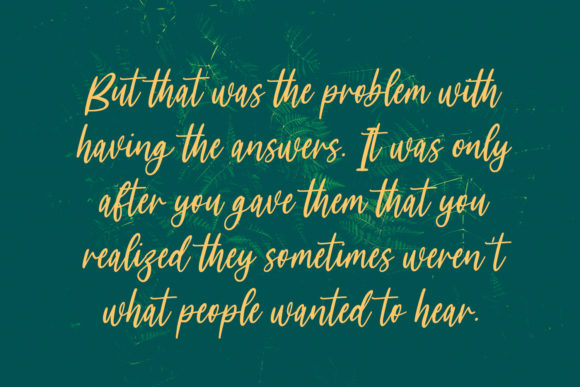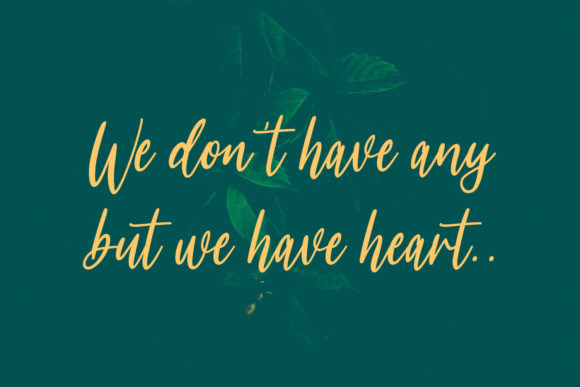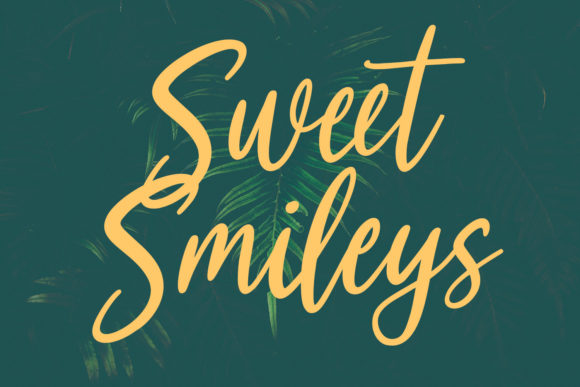
Introduction to Meganfoxy Script Font
As a designer, there’s nothing quite like the thrill of discovering a new font that elevates your creative project to the next level. For me, that moment came when I stumbled upon the enchanting Meganfoxy Script Font. Its elegant, handwritten style has a way of making even the simplest designs feel special and unique.
Whether you’re crafting wedding invitations, designing greeting cards, or creating logos for a personal brand, Meganfoxy Script Font is the perfect design resource to add a touch of sophistication and personality. With its high-quality, transparent background, this font is ideal for a wide range of applications, from print to digital projects.
What sets Meganfoxy Script Font apart is its versatility and ease of use. You can download it for free, making it an accessible design tool for designers of all levels. In this article, we’ll explore the beauty and benefits of Meganfoxy Script Font, and why it’s a valuable addition to any designer’s toolkit.
Key Features of Meganfoxy Script Font
- Unique, elegant script font design ideal for creative projects and design resources.
- Features a transparent background, making it easy to use on various backgrounds and designs.
- High-resolution font with a resolution of 300 DPI, suitable for printing and digital use.
- Supports a wide range of languages, making it a versatile design resource for international projects.
- Perfect for adding a touch of sophistication and elegance to various design elements, including logos, headings, and titles.
Honest Review: Meganfoxy Script Font
I recently stumbled upon the Meganfoxy Script Font while searching for a unique design resource to elevate my creative project. As a designer, I’m always on the lookout for high-quality fonts that can add a personal touch to my work. In this review, I’ll share my honest thoughts on this font.
- ✨ Unique and elegant design that’s perfect for branding and packaging.
- ✨ High-quality resolution that ensures crisp and clear text.
- ⚠️ The font doesn’t come with a transparent background, which might limit its use in certain design scenarios.
- ⚠️ Some characters might require additional styling or customization to achieve the desired look.
Overall, I’m impressed with the Meganfoxy Script Font’s potential. While it may have some limitations, its unique design and high-quality resolution make it a valuable addition to any designer’s toolkit. With a little creativity and experimentation, this font can help take your design project to the next level.
Meganfoxy Script Font
Designing with Meganfoxy Script Font
Meganfoxy Script Font is a versatile and elegant design resource ideal for various creative projects. To get the most out of this high-quality font, follow these steps:
To get the most out of Meganfoxy Script Font, use it for titles, headings, and other design elements where a touch of elegance is required. This font is particularly suitable for:
- Branding and logo design
- Photography and art projects
Alternatives to Meganfoxy Script Font
Alex Brush Font is a beautiful script font perfect for creative projects that require a touch of elegance and sophistication. It’s ideal for designing wedding invitations, certificates, and other formal documents. With its high quality and transparent background, it’s a great design resource for any project. Alex Brush Font is a great alternative to Meganfoxy Script Font for those who want a more refined and polished look.
Carolyna Pro Font is a modern script font that’s perfect for designers who want to add a touch of luxury and sophistication to their projects. It’s ideal for designing high-end branding materials, packaging, and advertising campaigns. With its high quality and transparent background, it’s a great design resource for any project. Carolyna Pro Font is a great alternative to Meganfoxy Script Font for those who want a more modern and edgy look.
What is the recommended size and resolution for using the Meganfoxy Script Font?
For optimal results, we recommend using the Meganfoxy Script Font at a minimum size of 12 points and a resolution of 300 DPI. This will ensure that the font appears clear and legible, even in high-quality printing and digital applications. You can adjust the size and resolution according to your specific design requirements.